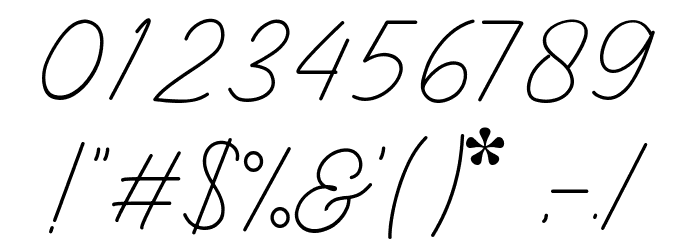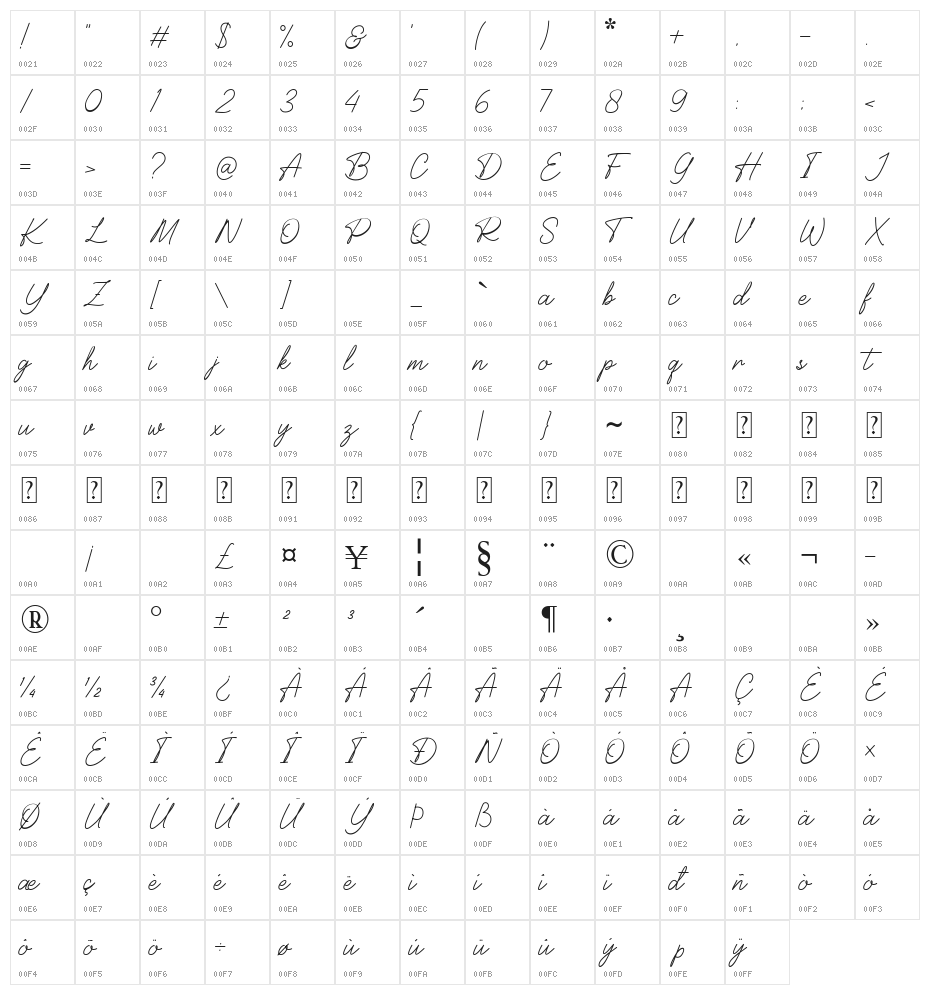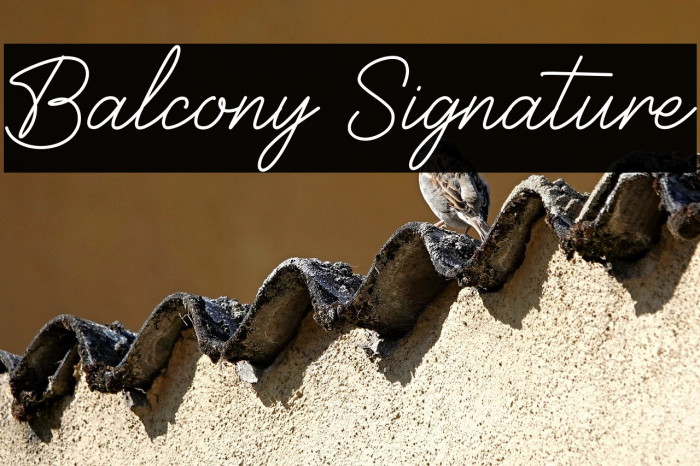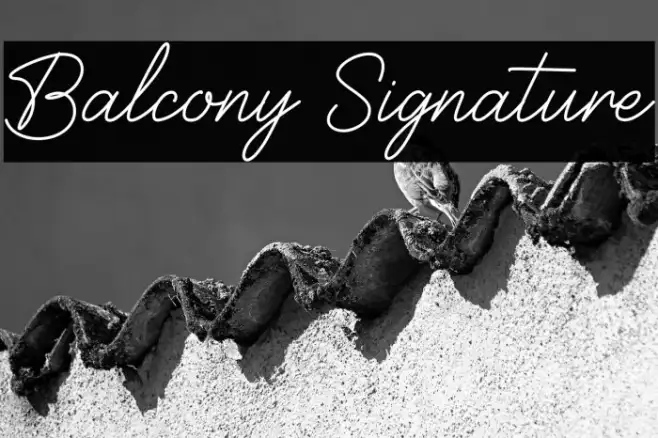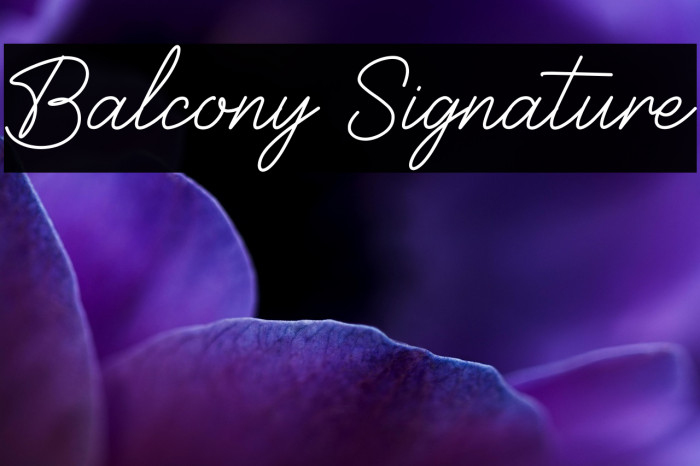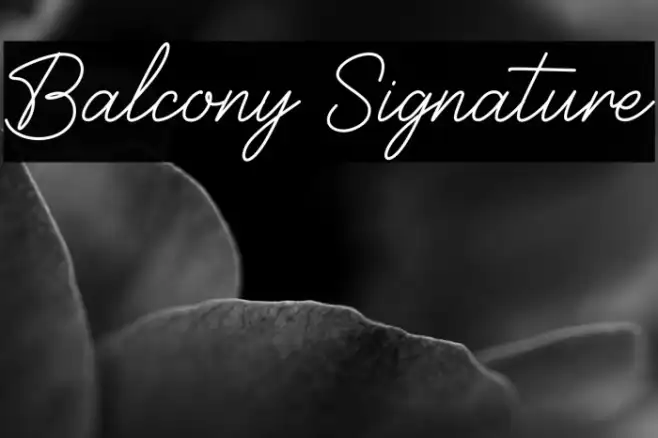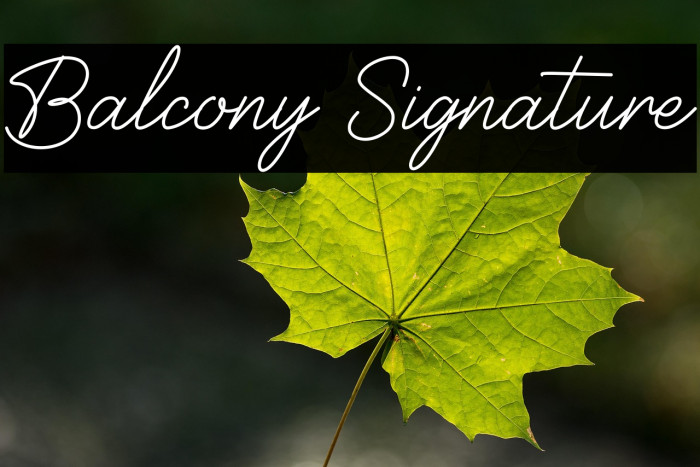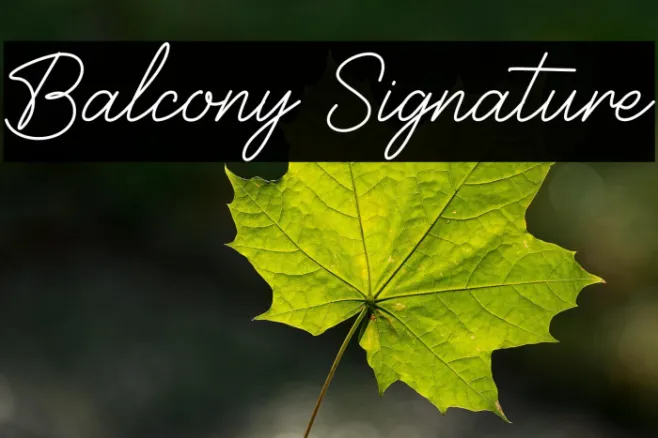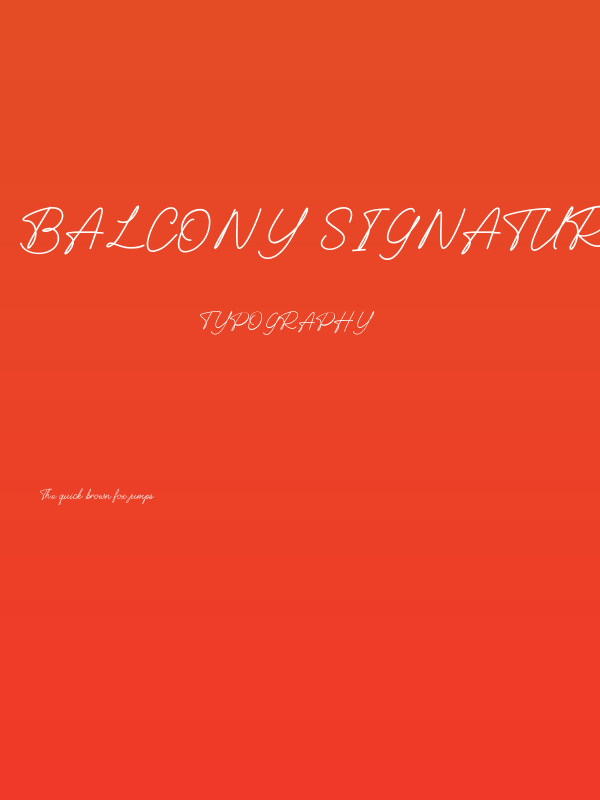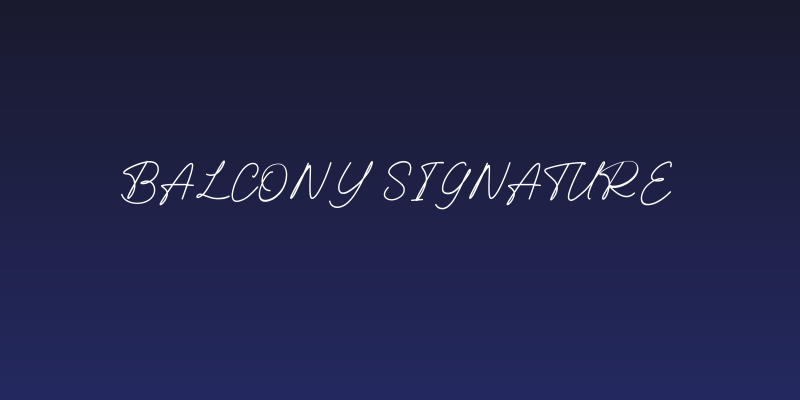
Balcony Signature Font
Balcony Signature Description
This font exudes elegance and sophistication with its flowing, cursive style. The uppercase letters are tall and slender, with graceful loops and curves that give a sense of fluidity and movement. The lowercase letters maintain a consistent slant, enhancing the script-like appearance. Numbers are designed with a similar flair, ensuring a cohesive look across all characters. Special characters are thoughtfully integrated, maintaining the overall aesthetic. The font's delicate strokes and smooth transitions make it ideal for projects that require a touch of class and refinement.
| Overall Style | Elegant, Sophisticated |
| Proposed Projects | Ideal for wedding invitations, elegant branding, personal signatures, and upscale packaging. |